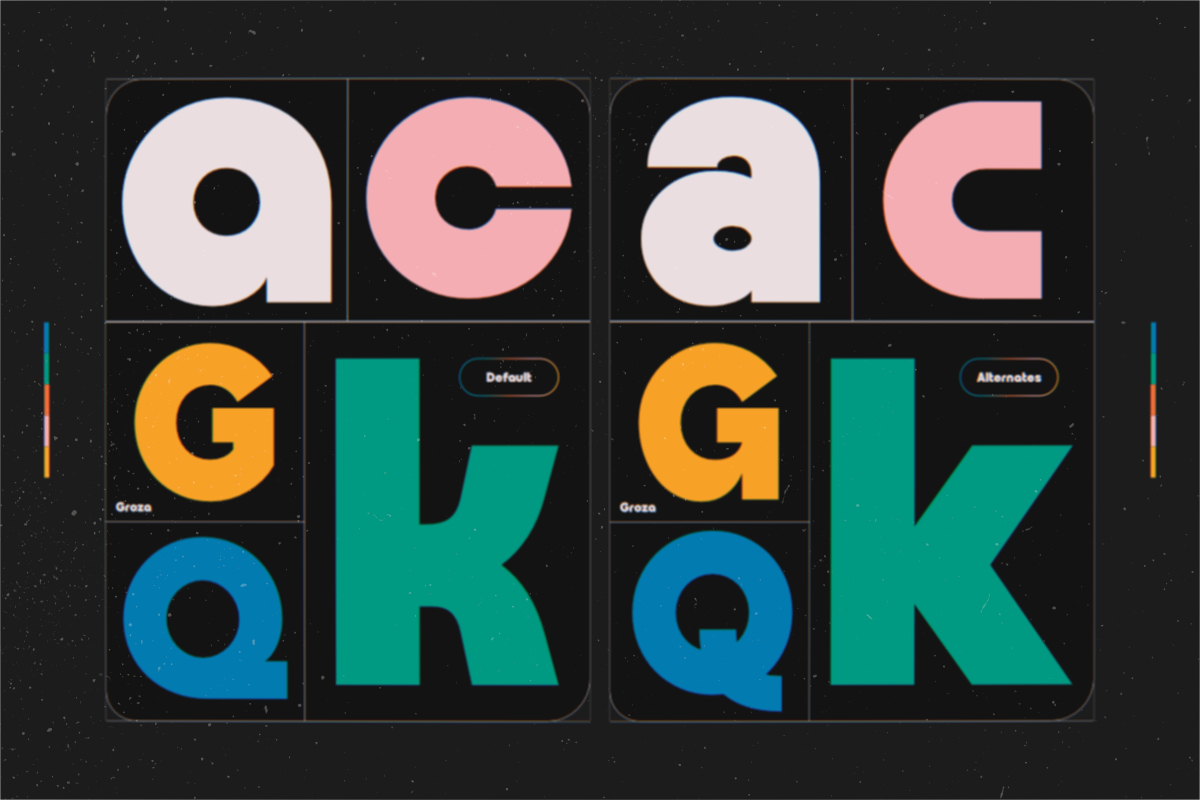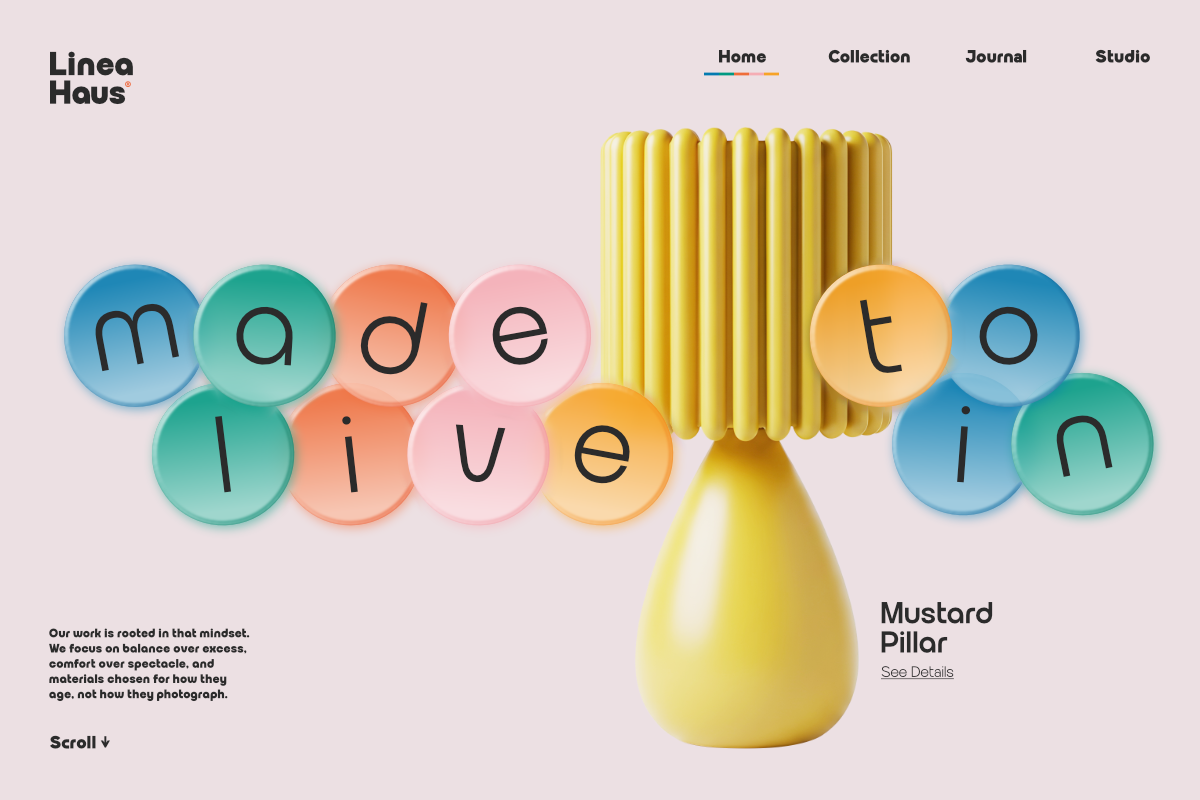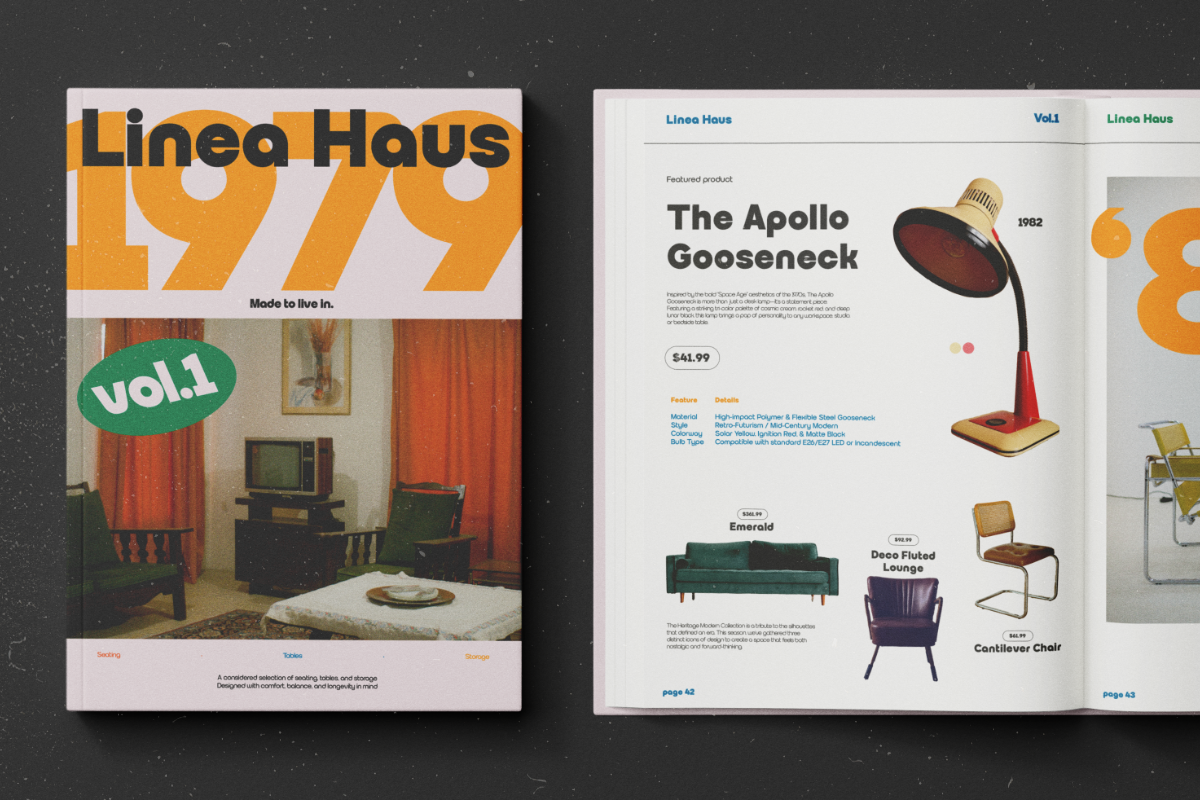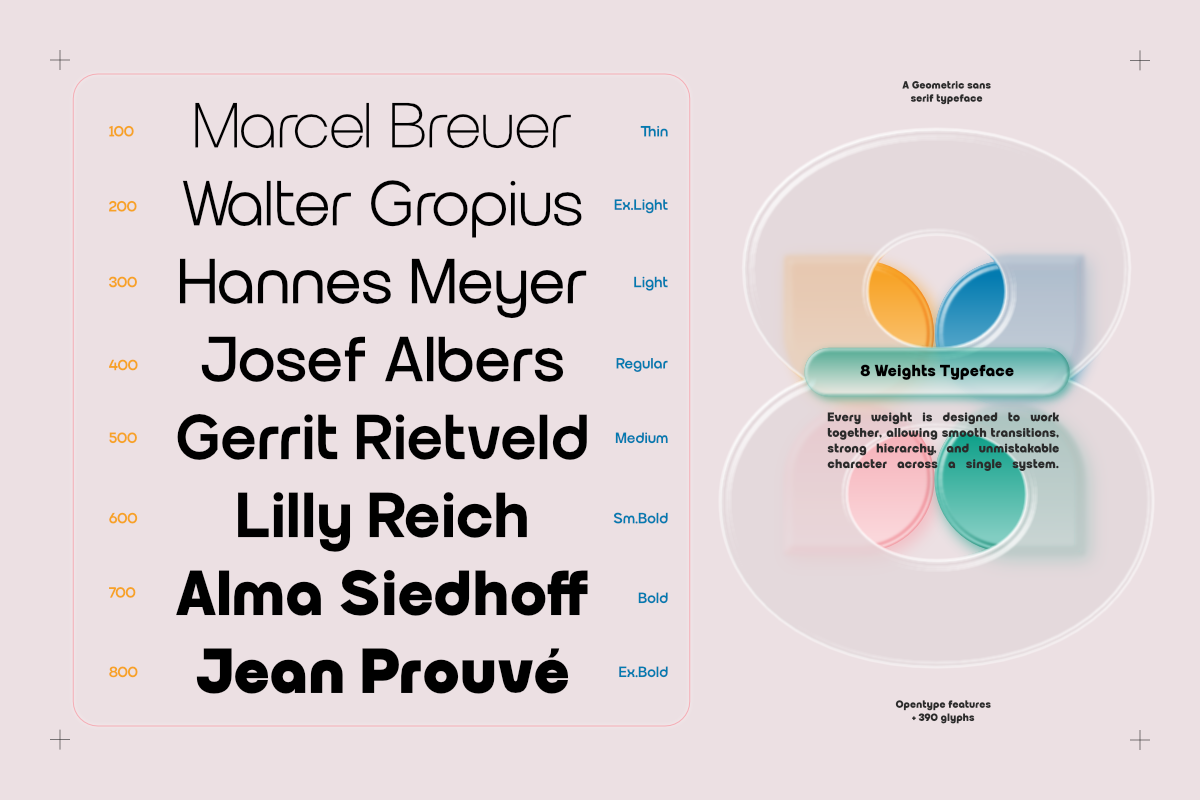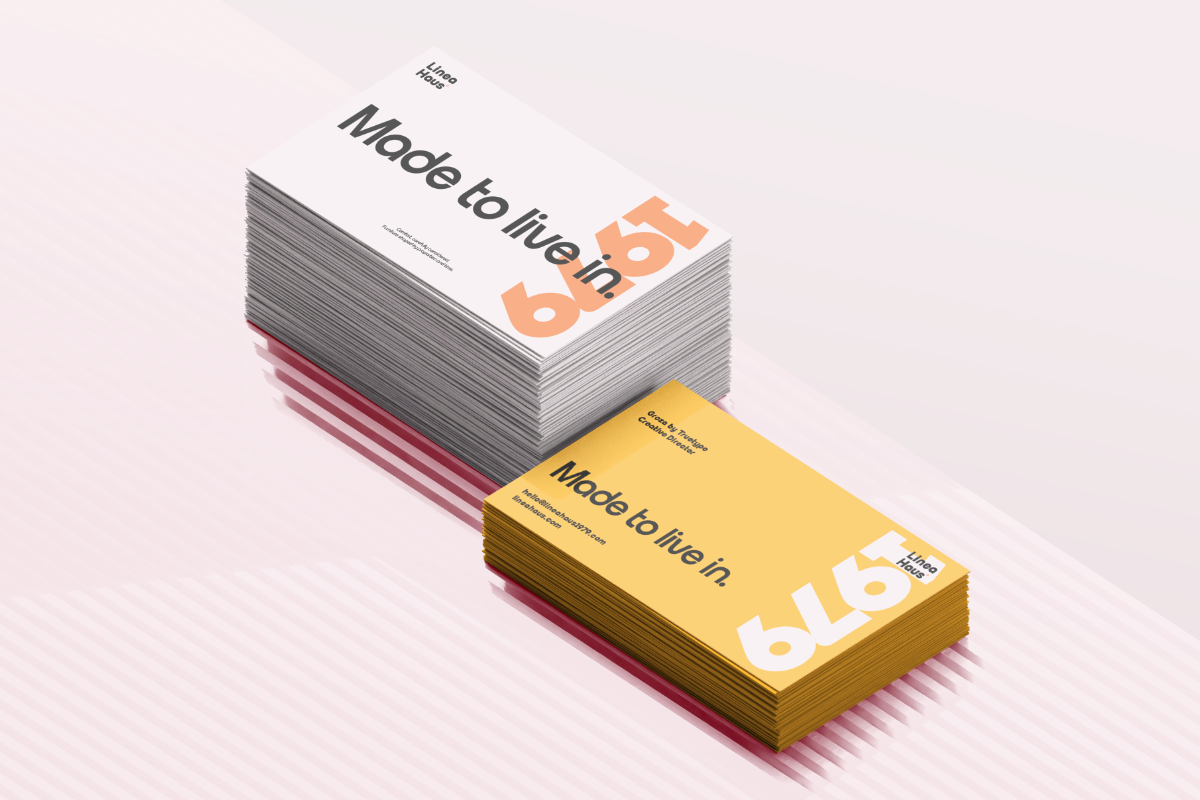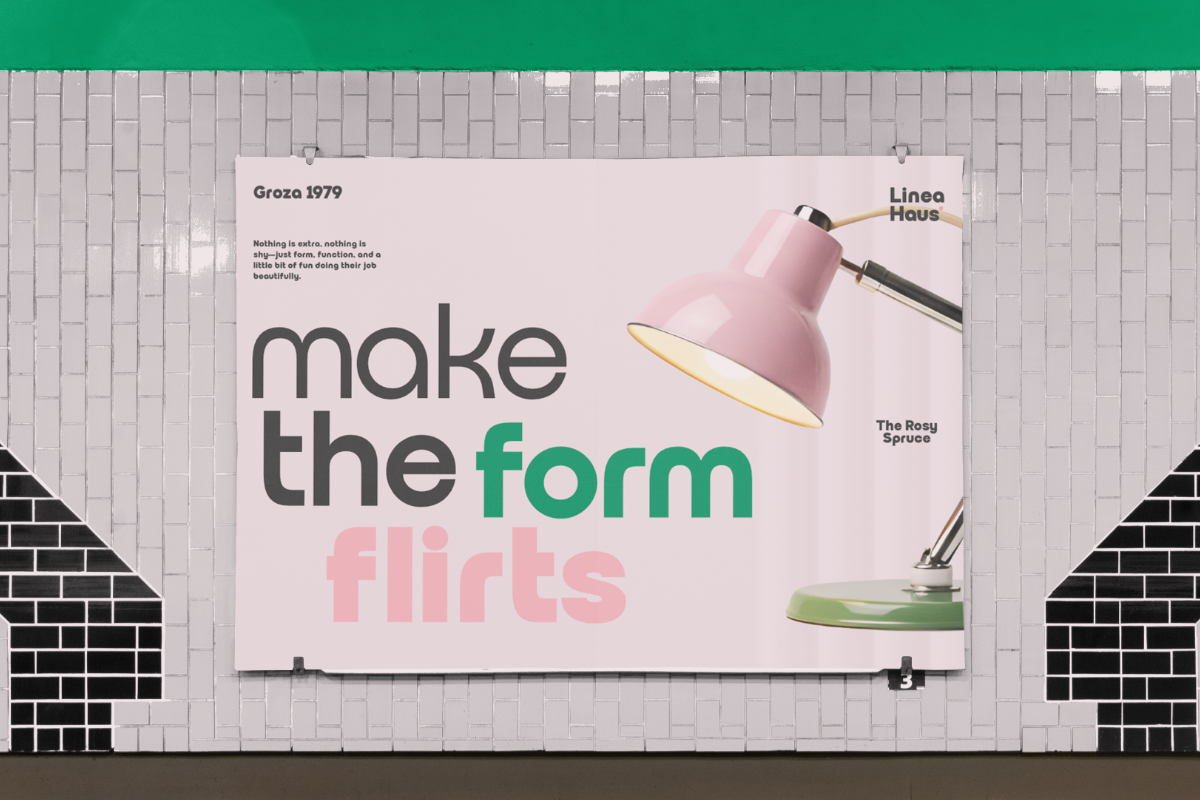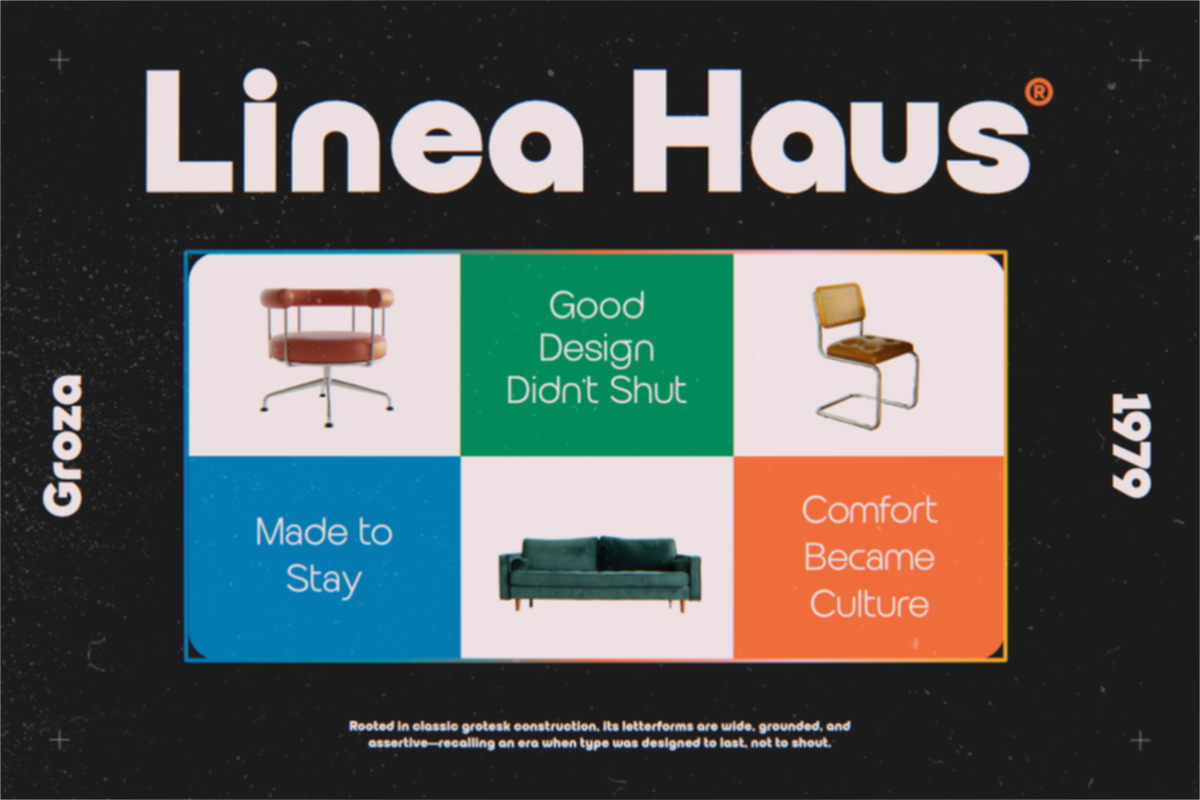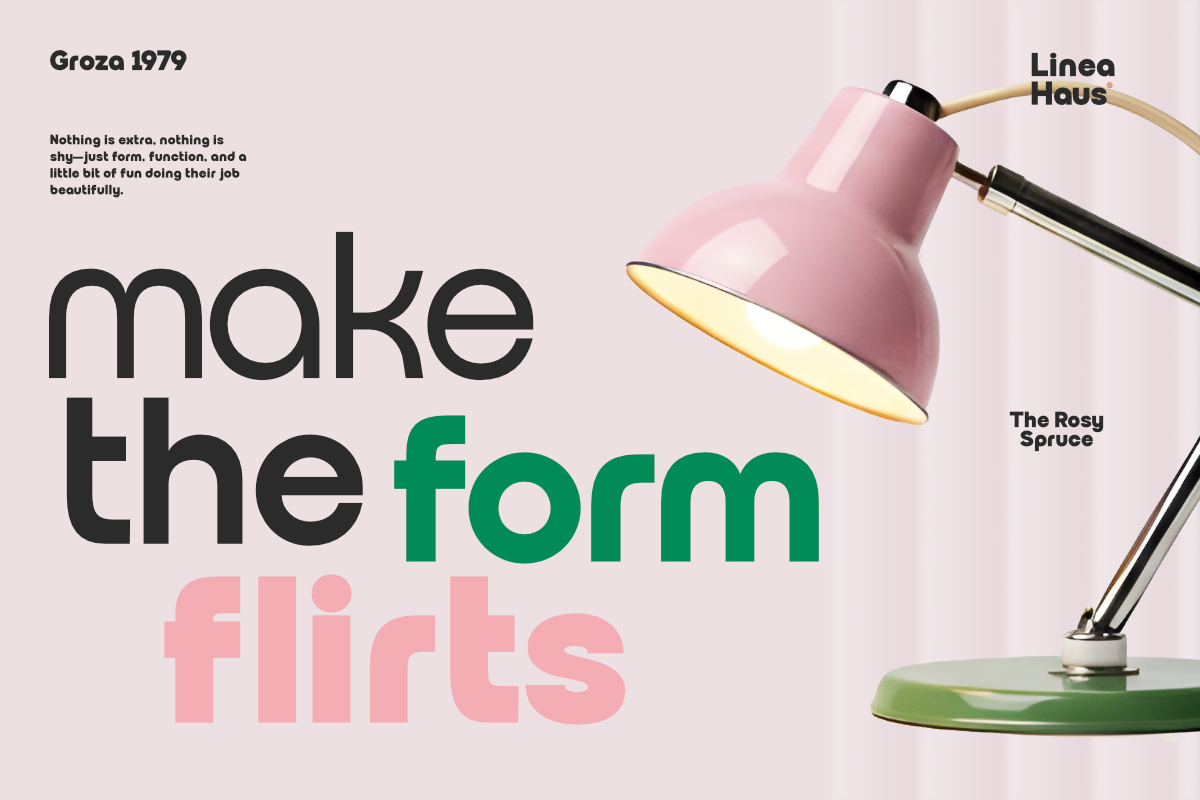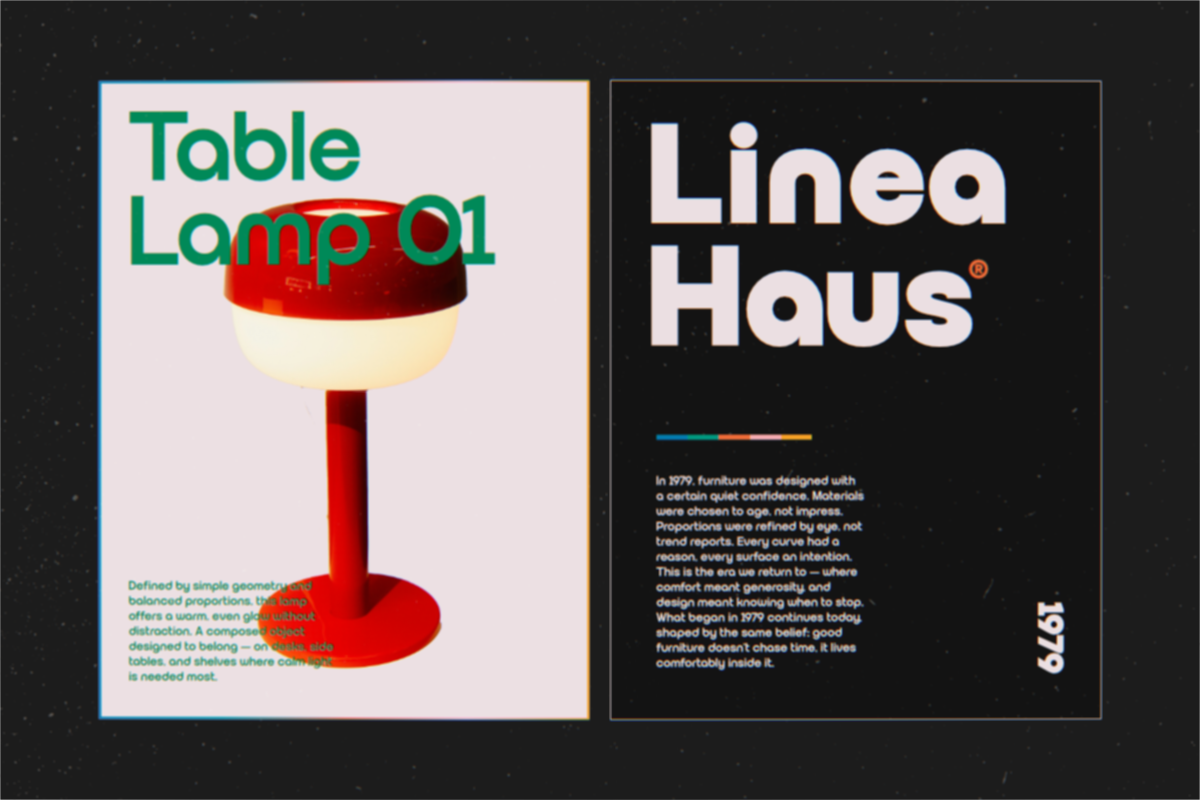
TRT Groza Strong Geometric
Groza is a bold and playful sans serif font made to grab attention. With thick strokes, rounded shapes, and a modern geometric feel, Groza brings warmth and confidence to any design.
Designed primarily for display use, Groza works perfectly for branding, posters, packaging, social media graphics, and modern layouts. Its friendly curves and solid structure make it easy to pair with vibrant colors and experimental compositions.
If you’re looking for a font that feels fun, modern, and expressive Groza is built for that purpose.